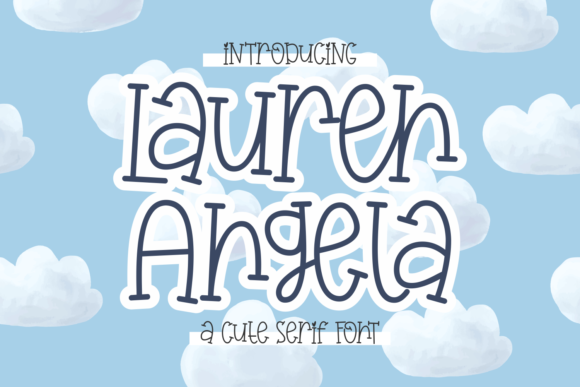
Lauren Angela Font
Introducing Lauren Angela Font – the ultimate font for injecting joy and playfulness into your designs!
Unleash your creativity with Lauren Angela's whimsical curves and bouncy characters that dance across the page, captivating your audience with their infectious charm. Its childlike innocence makes it perfect for children-related designs, storybooks, and magazines that aim to ignite imaginations and evoke sweet memories.
Whether you're crafting enchanting invitations, cheerful posters, or heartwarming social media posts, Lauren Angela Font empowers you to convey your message with a touch of whimsy and warmth. Its versatile nature seamlessly complements a wide range of design aesthetics, from playful and lighthearted to sophisticated and elegant.
Experience the transformative power of Lauren Angela Font today and let your designs radiate with joy and creativity!